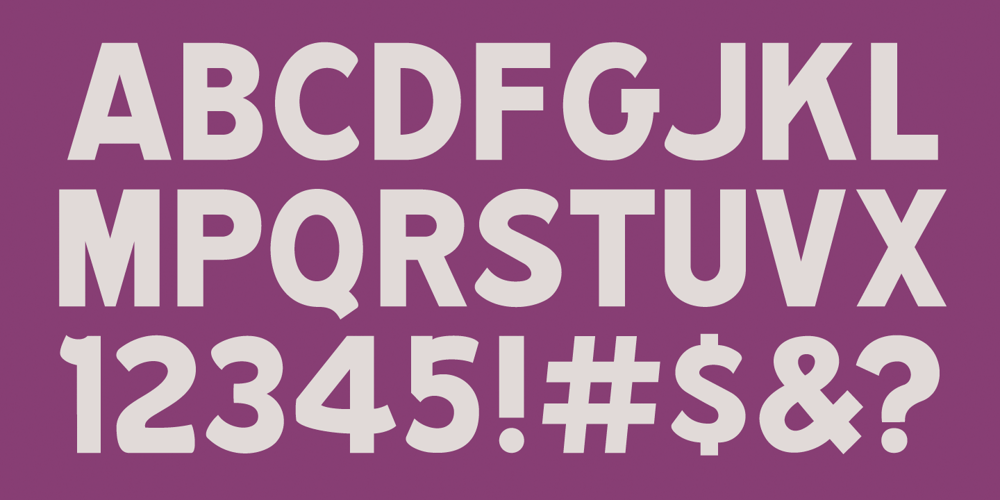
MPI Republic Gothic Font Family was designed by published by mpressInteractive. MPI Republic Gothic contains 1 styles and family package options. Norwich Aldine Reverse is a font of “streamer type” (reversed out type used for banners or streamers) originally designed around 1872. Norwich Aldine is slightly lighter and more open than Aldine. It features medium stroke contrast, heavy serifs, and large rounded bracketing (where the stems meet the serifs). Our version is based on wood type of unknown origin. We created dozens of special ligatures to reduce problematic kerning encountered with a monospaced reversed type.